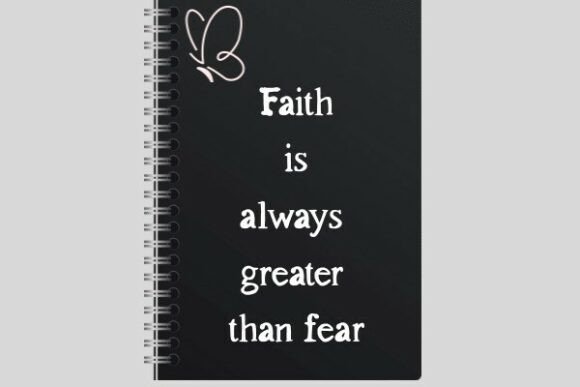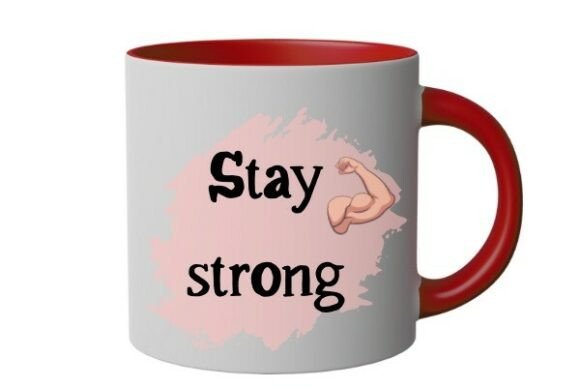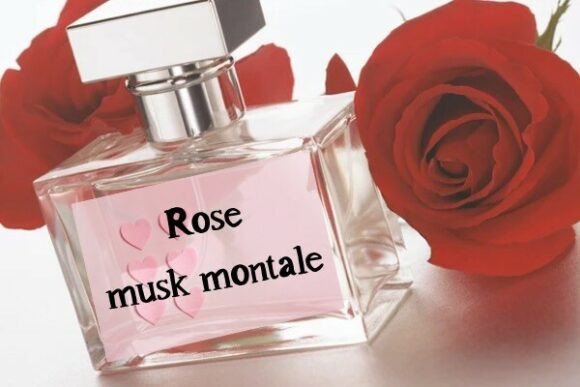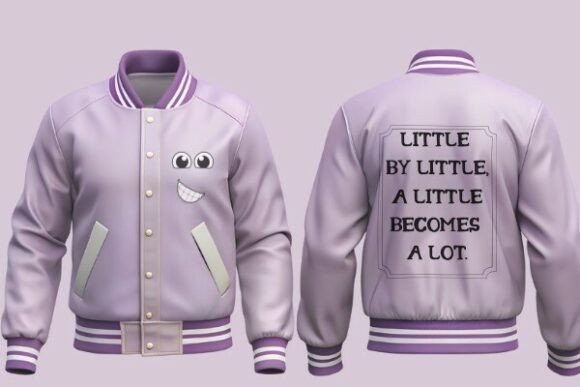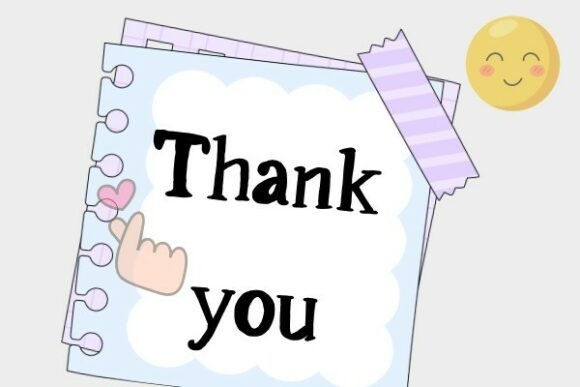
Introduction to Rubber Font
Rubber is a bold and effortlessly authentic font with a natural appeal.
Its robust design makes it an ideal fit for creative projects such as t-shirt designs, coffee mug prints, greeting cards, mockups, and beyond With its inherent versatility, the Rubber font enhances your creativity and helps your designs stand out with a distinct flair.
Rubber Font offers exceptional quality and versatility, making it a valuable addition to your design toolkit. Whether you’re creating for personal projects or commercial use, Rubber Font delivers professional results.